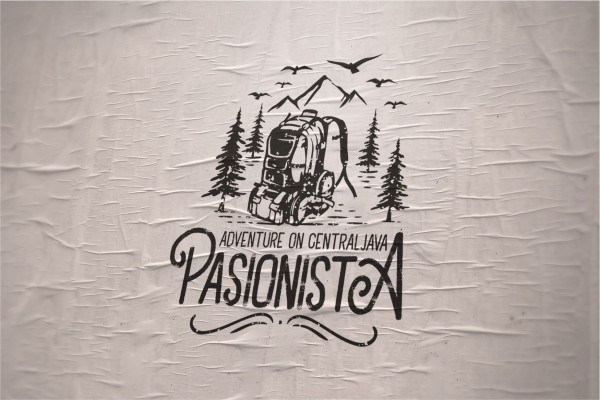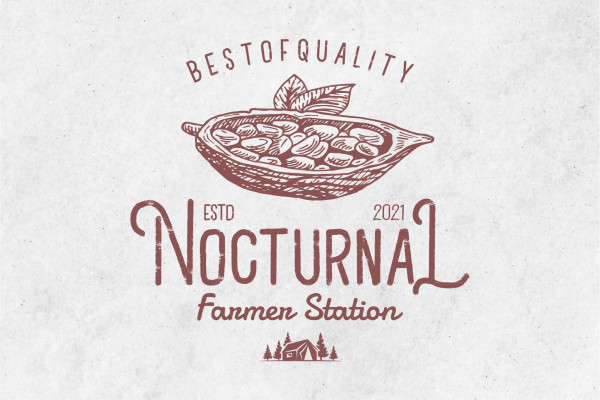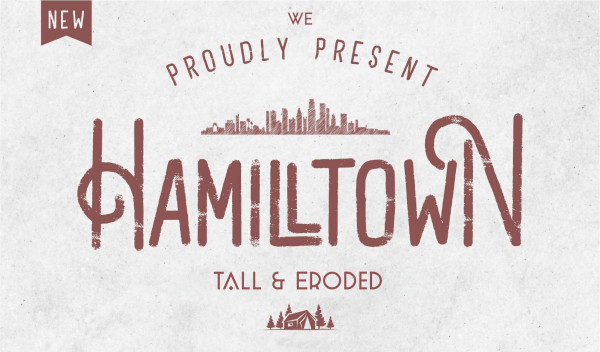
Hamilltown Display Font
Hamilltown Display Font, This font is perfect for stickers, retro projects, craft projects, shirts, svg designs, procreate designs, branding, blogs, logos, invitations and more!
Drawn and created in 2021-2023, this cool eroded typeface has a distinct style and a strong personality.